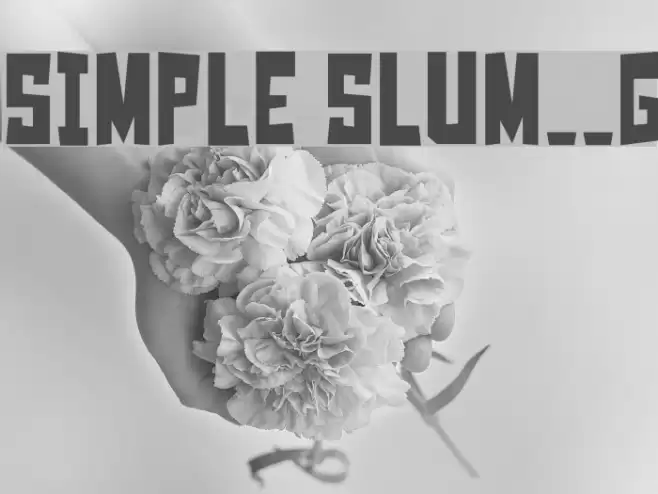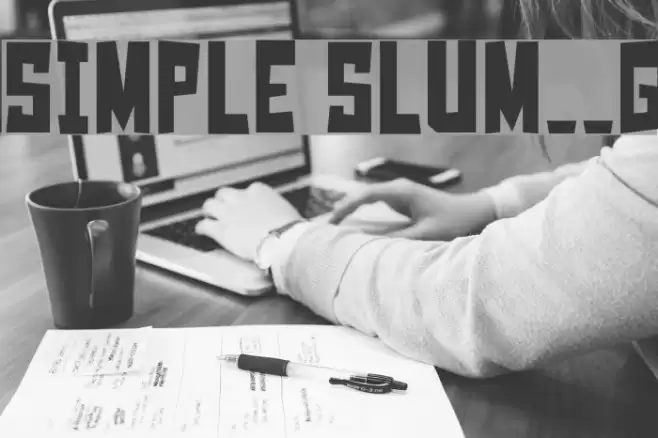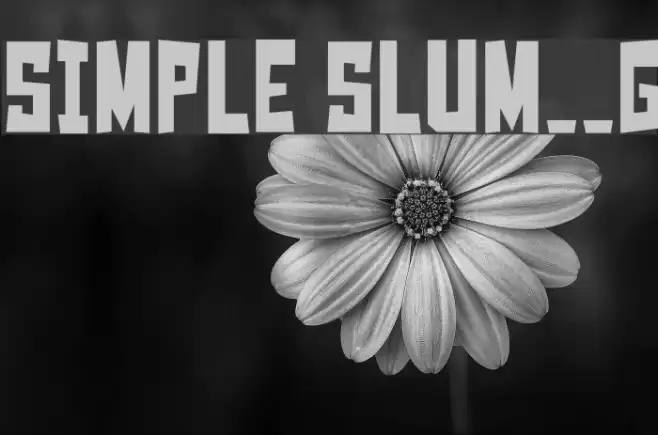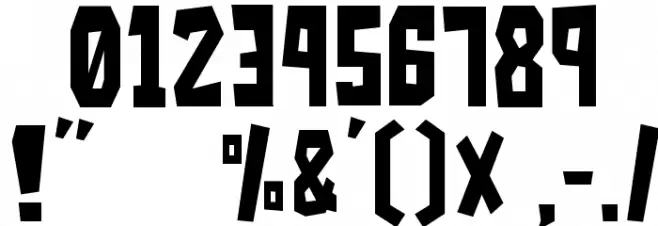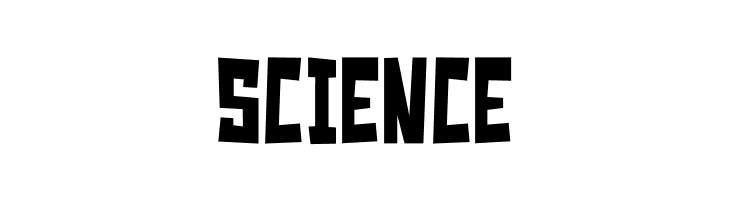
Simple Slum__G Font
This font features a bold and edgy design with sharp, angular lines and a strong geometric presence. The characters are blocky and robust, giving off a modern and urban vibe. Each letter and number is distinct, with a slightly irregular shape that adds a unique, handcrafted feel. The font's style is reminiscent of street art or graffiti, making it ideal for projects that require a bold statement. The special characters maintain the same angular and bold characteristics, ensuring consistency throughout the typeface.
A bold, angular font with a modern, urban style from Uncategorized fonts.
- Proposed Projects: Ideal for street art designs, urban-themed posters, edgy branding, and eye-catching headlines.